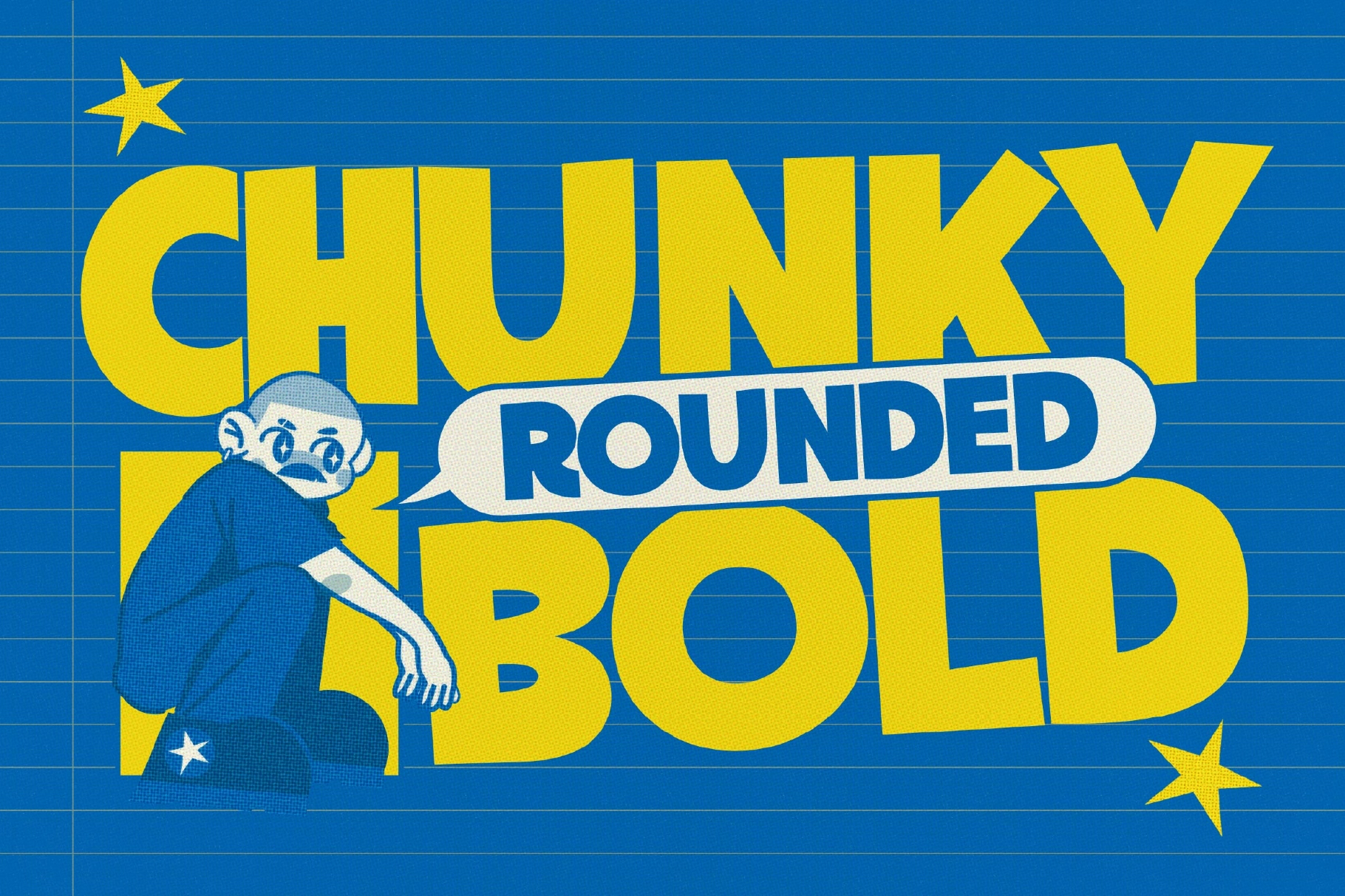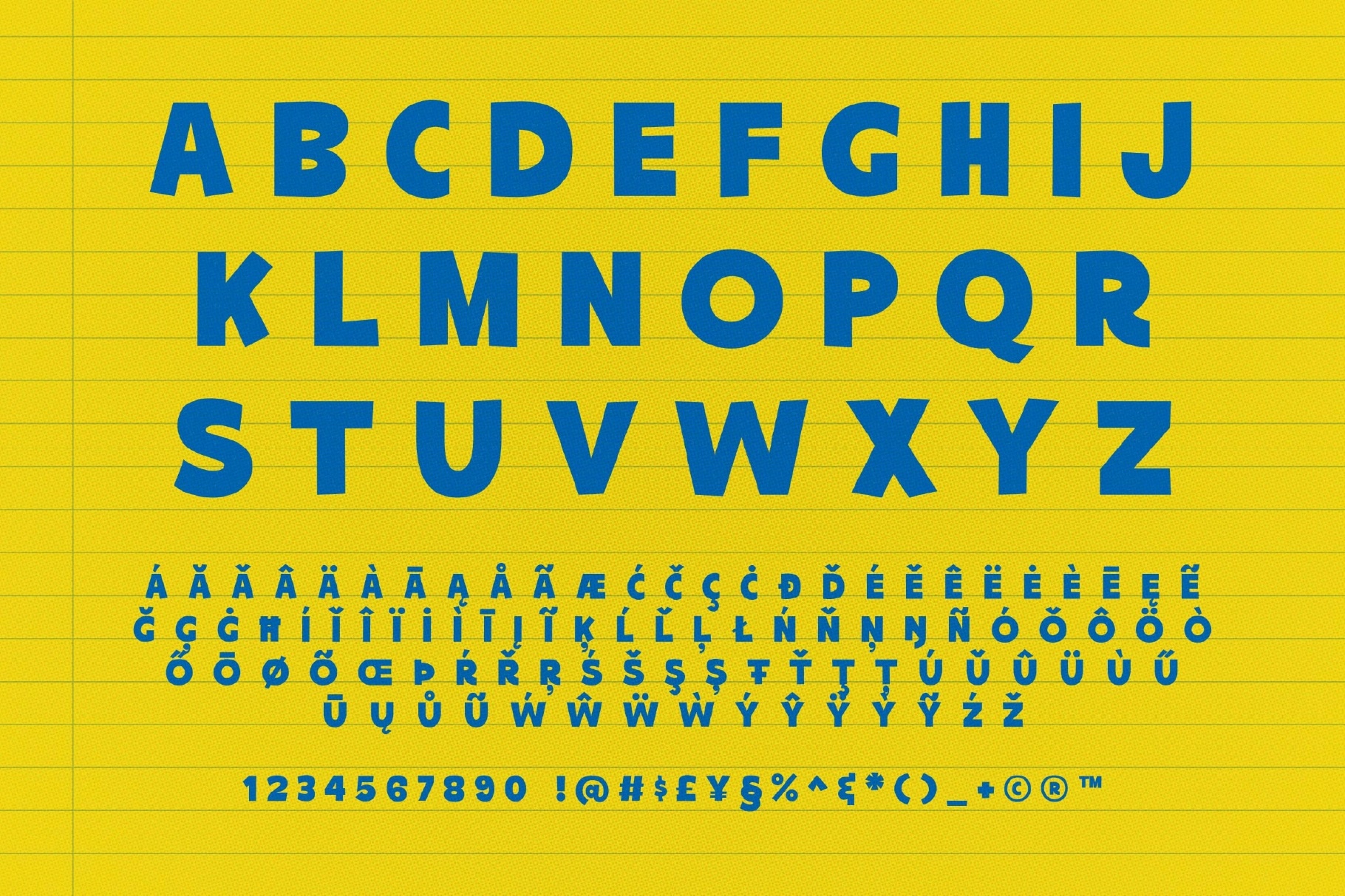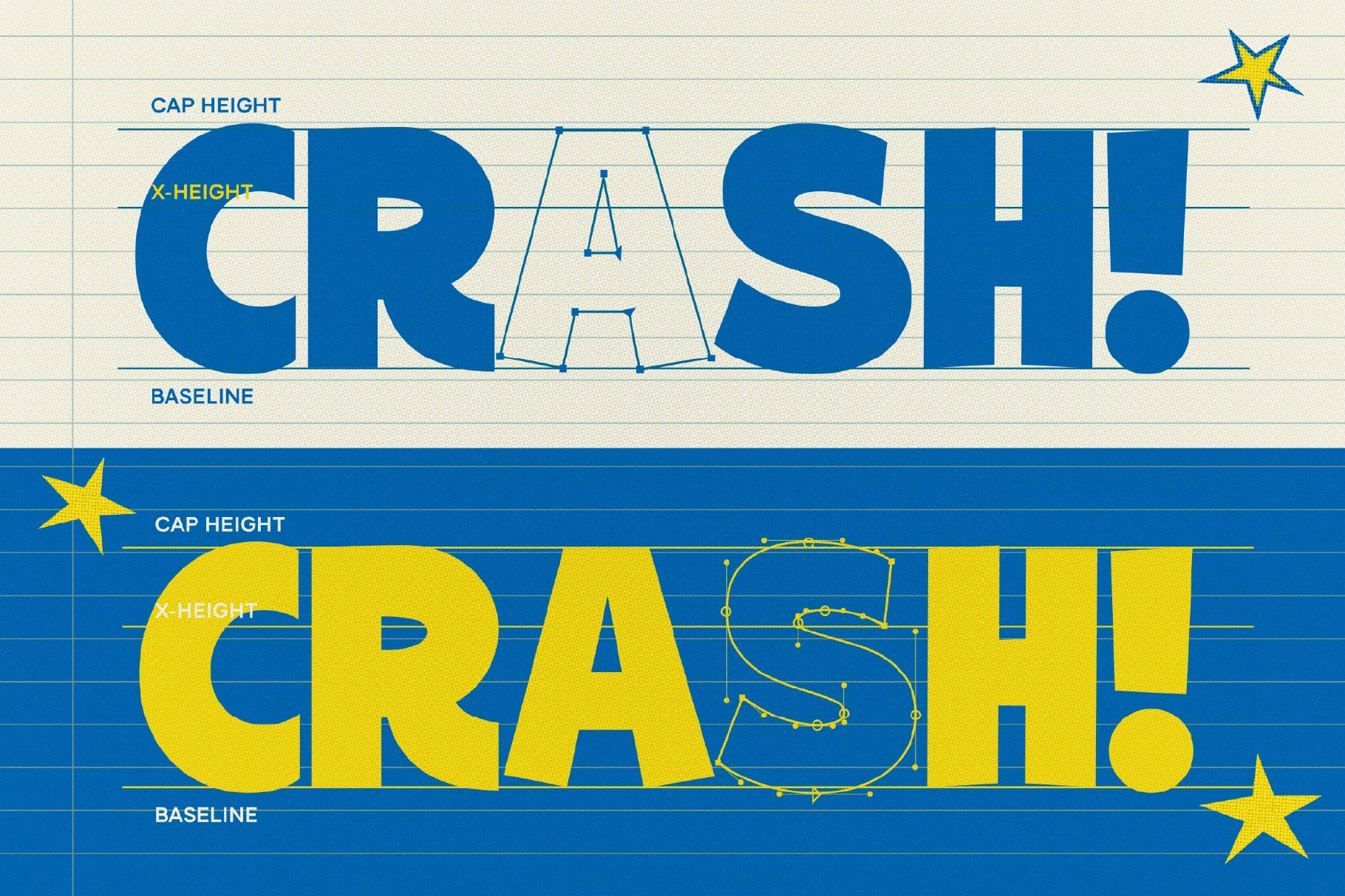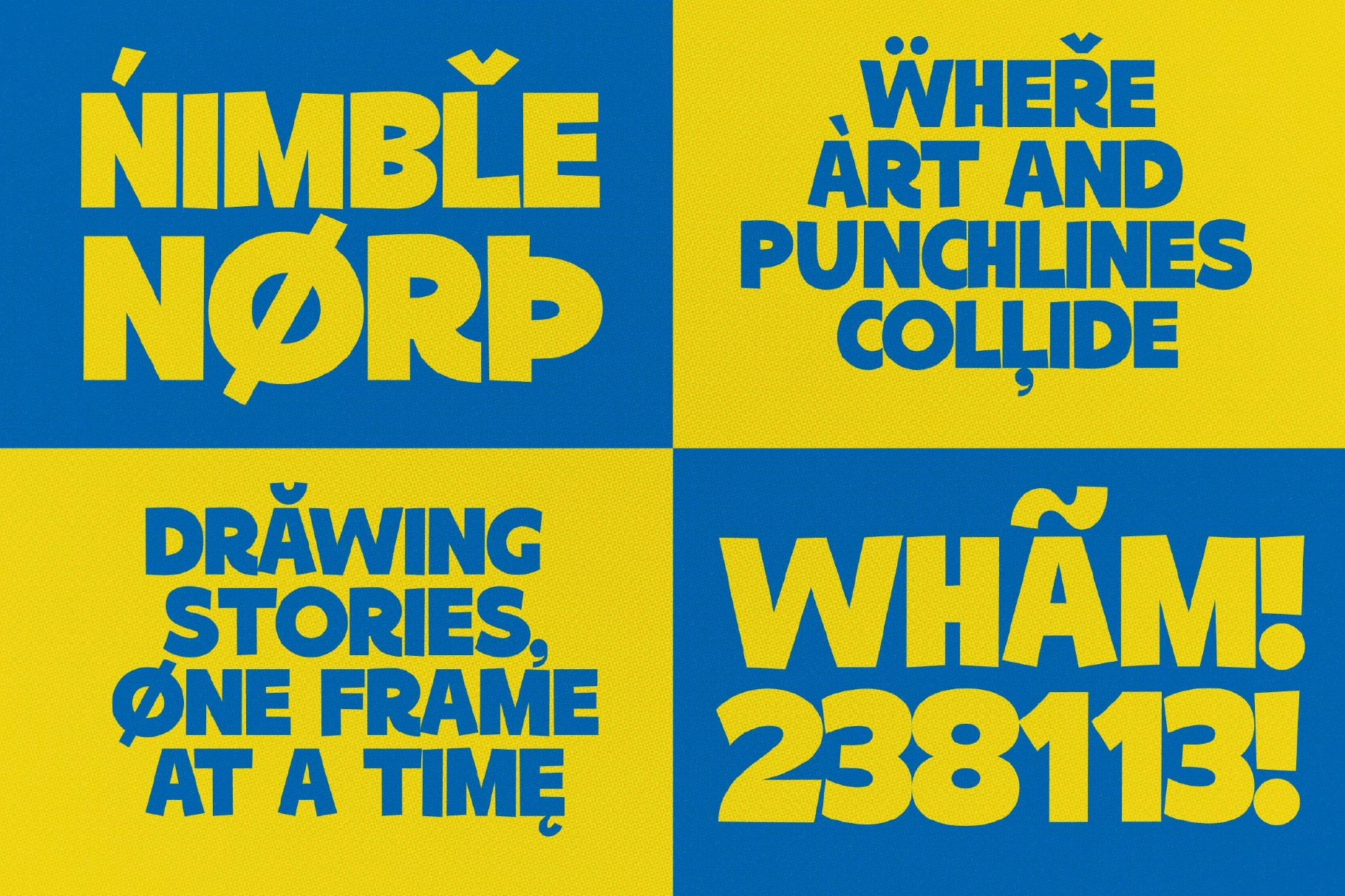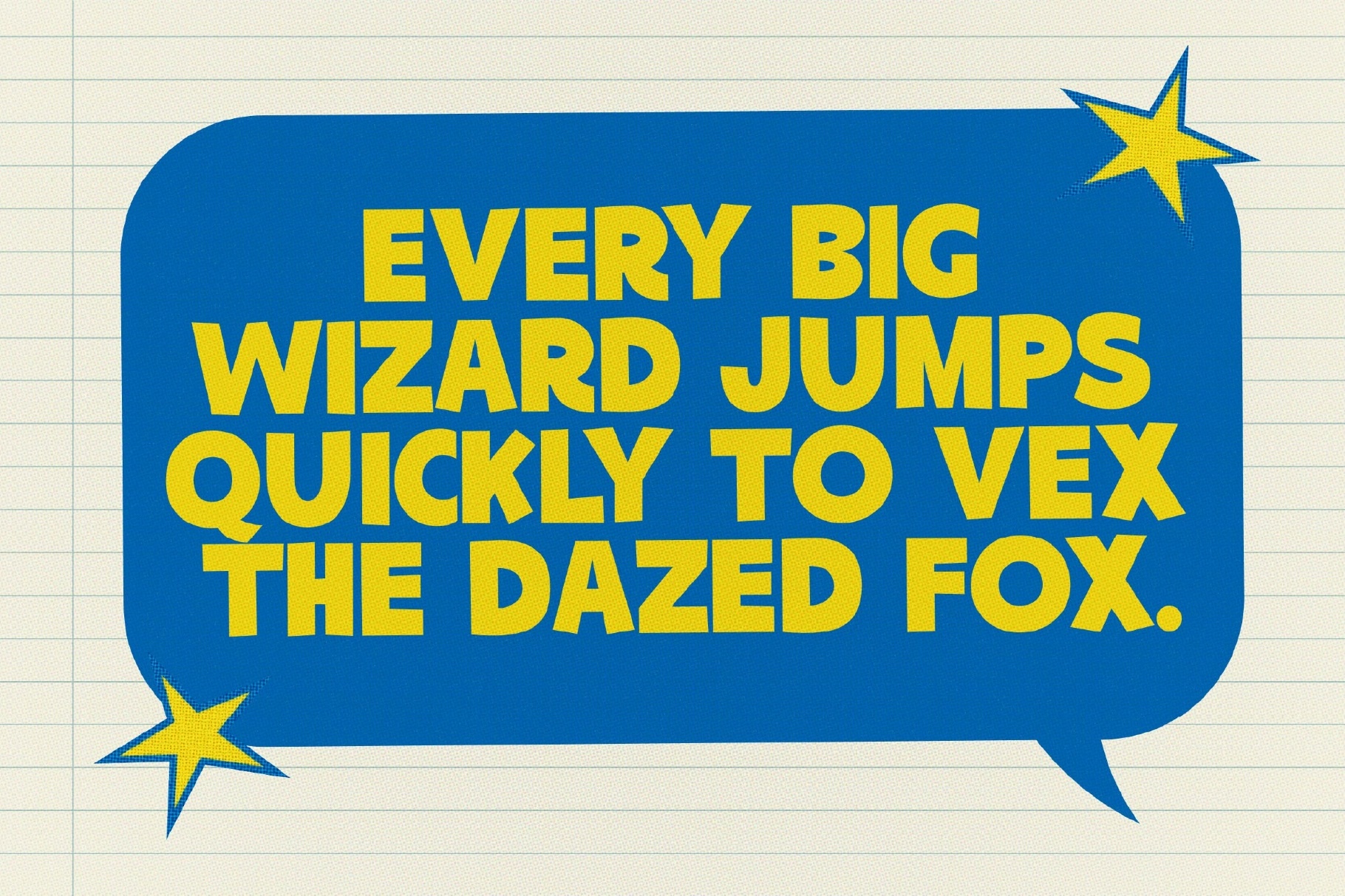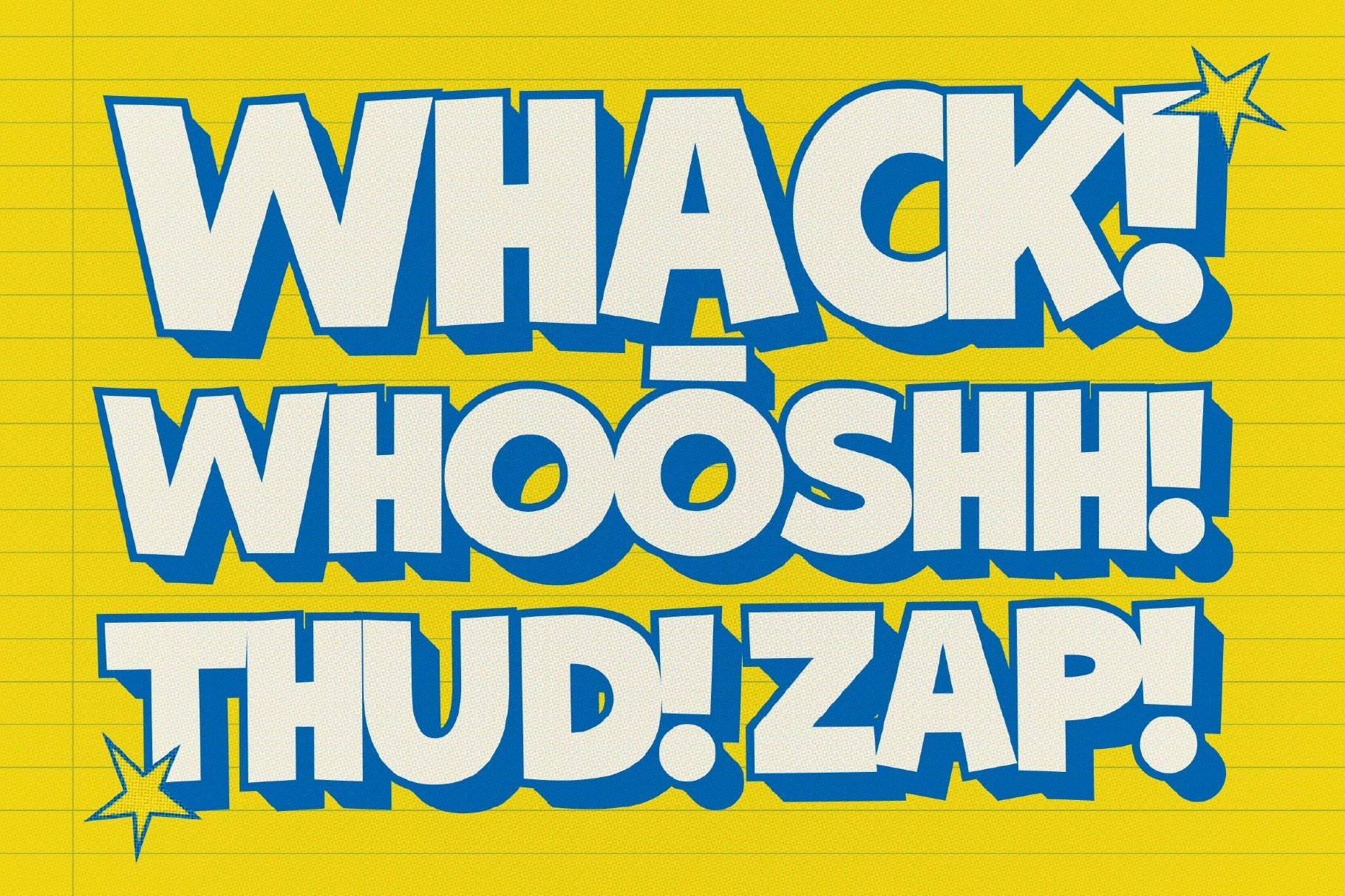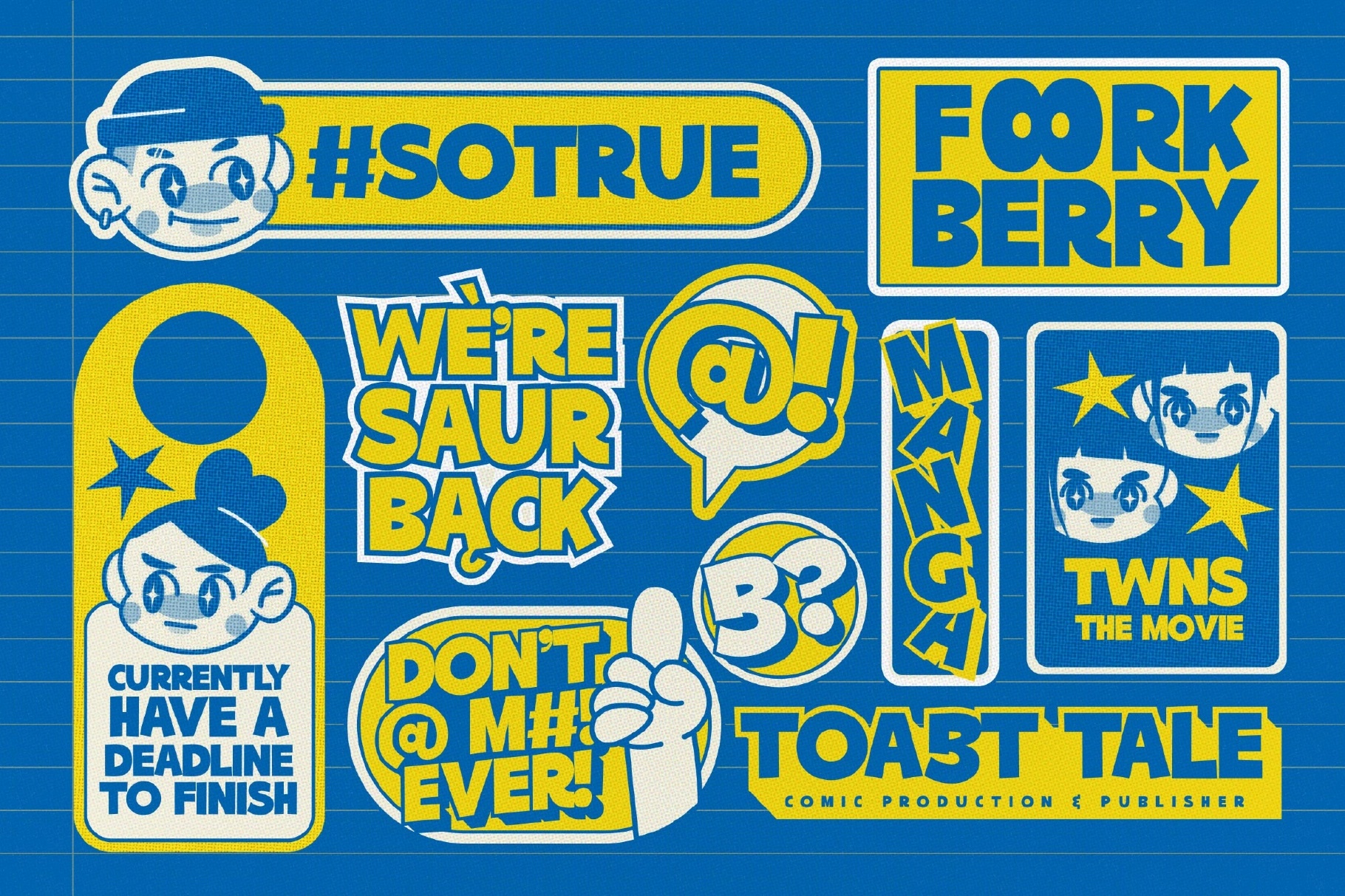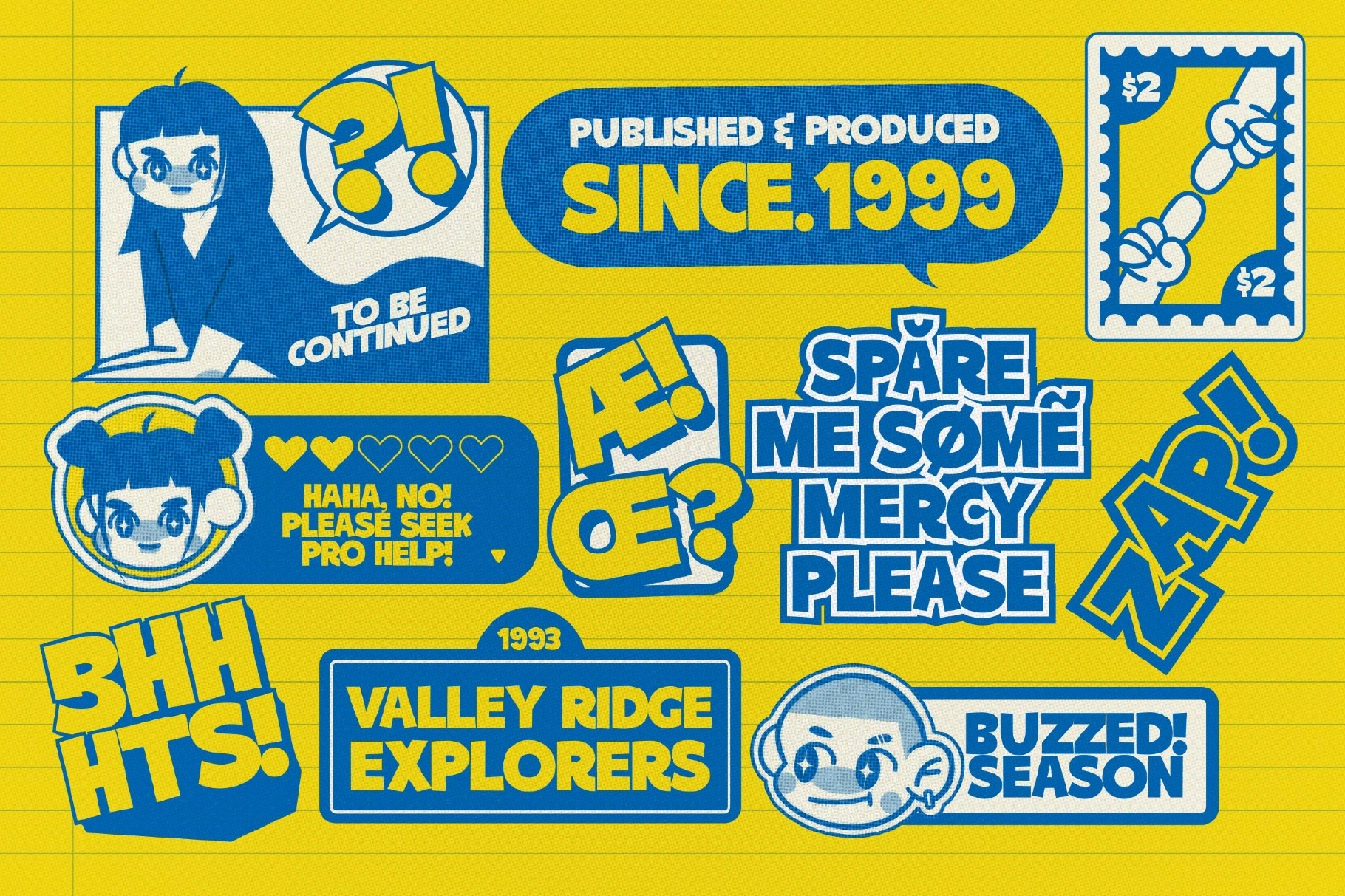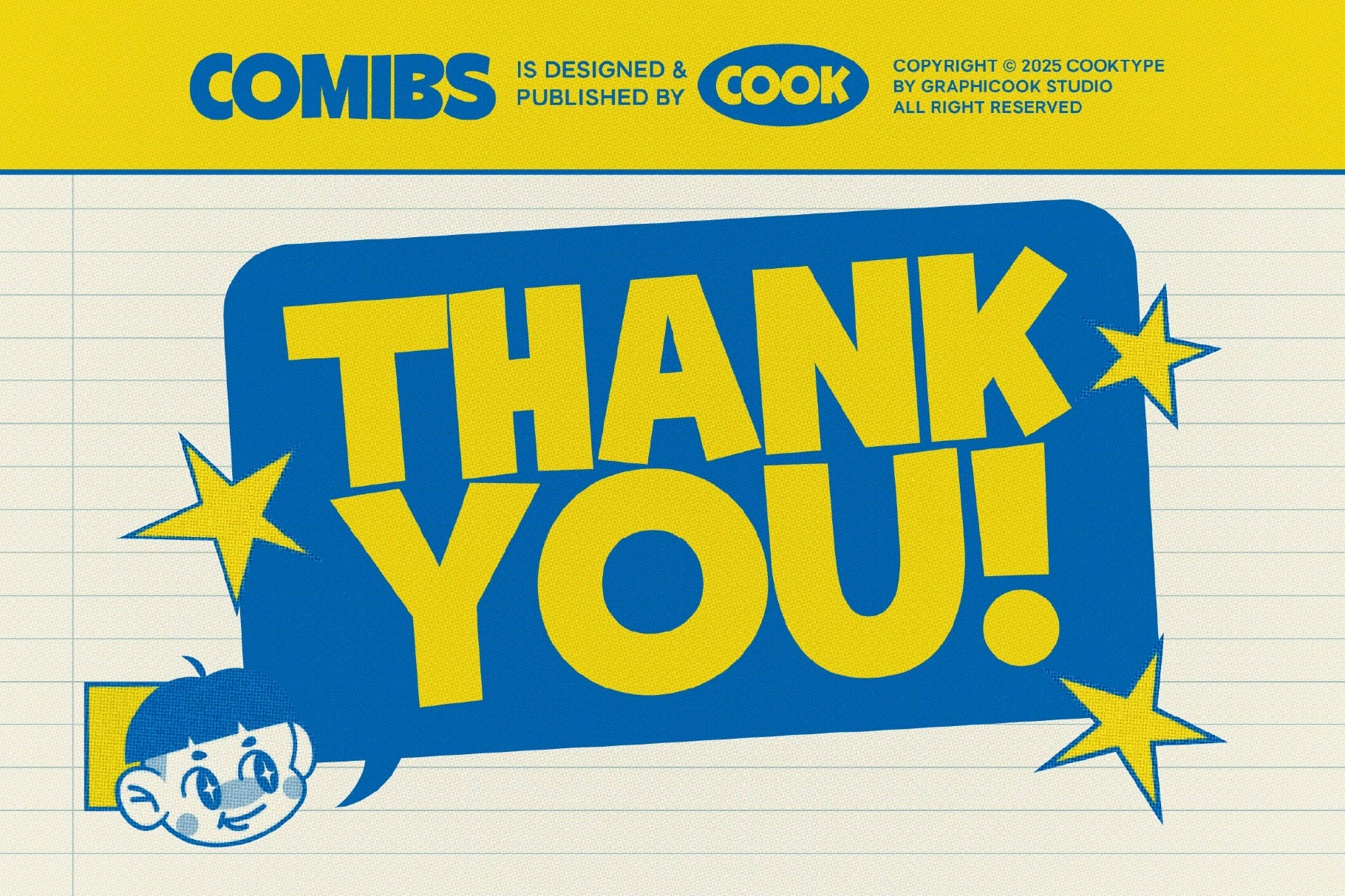
Comibs Font
Comibs
Comibs is a bold comic-style font with expressive, eye-catching characters that combine playfulness and impact. Perfect for headlines, branding, and designs that aim to convey a cheerful tone with strong visual contrast.